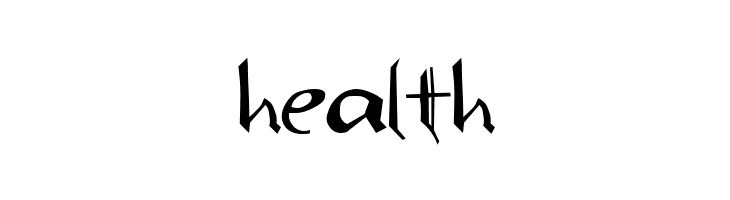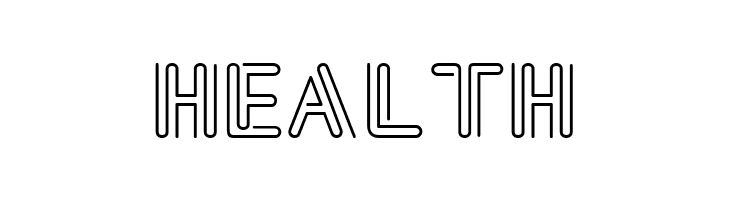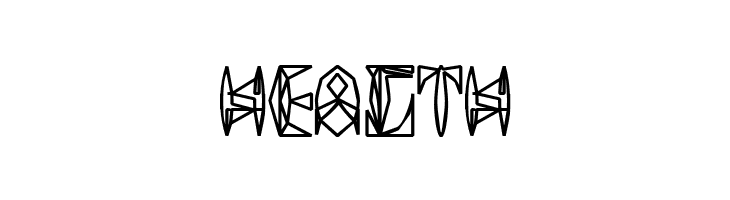
A bold, futuristic font with geometric, techno-inspired characters enclosed in circles.
A modern, geometric font with a clean and condensed design.
A bold, decorative font with a shadow effect for a three-dimensional look.
A modern, geometric font with tall, narrow characters and uniform stroke width.
A bold, geometric font with a distinctive shadow effect, perfect for modern and creative designs.
A bold, angular font with a playful and whimsical style.
A bold, geometric font with a modern and playful style.
A whimsical and decorative font with playful curls and swirls.
A playful, jagged font with a hand-cut, artistic style.
A bold, hand-drawn font with a rugged, textured appearance.
A bold, three-dimensional font with a strong shadow effect and angular design.
A bold, distressed font with a rugged, gritty appearance.
A decorative font made of star shapes, perfect for glamorous and theatrical designs.
A quirky, hand-drawn font with elongated, irregular strokes and a whimsical style.
A classic blackletter font with ornate, angular designs and a medieval aesthetic.
A bold, gothic-style font with sharp angles and thick strokes, ideal for dramatic headlines.
A playful, hand-drawn font with rounded, organic shapes.